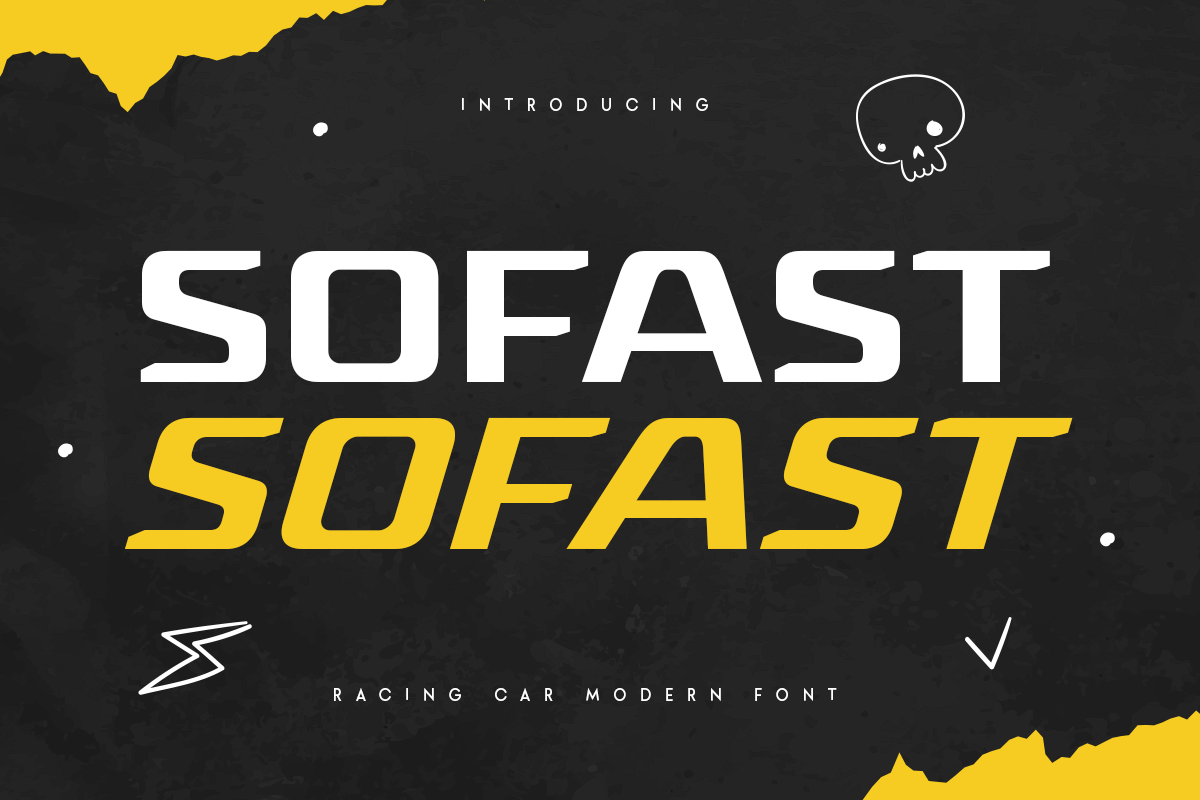
SOFAST - Racing Car Modern Font
Accelerate your designs with SOFAST - a high-speed modern racing font built for maximum impact and style. This futuristic sport font delivers modern, racing-inspired characters with unique styling that's perfect for sport events, branding projects, and high-energy designs. The sleek letterforms combine easily to create striking variations and eye-catching shapes in seconds. SOFAST features both Regular and Italic weights with exceptional legibility, making it ideal for sport branding projects, j...